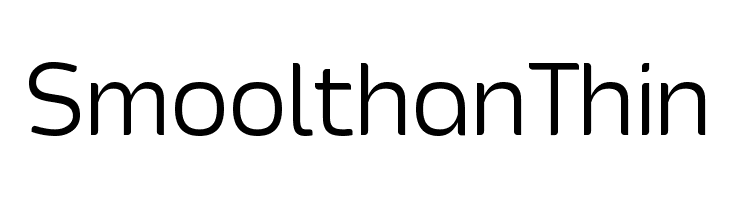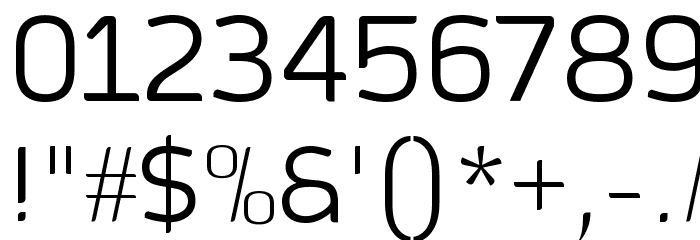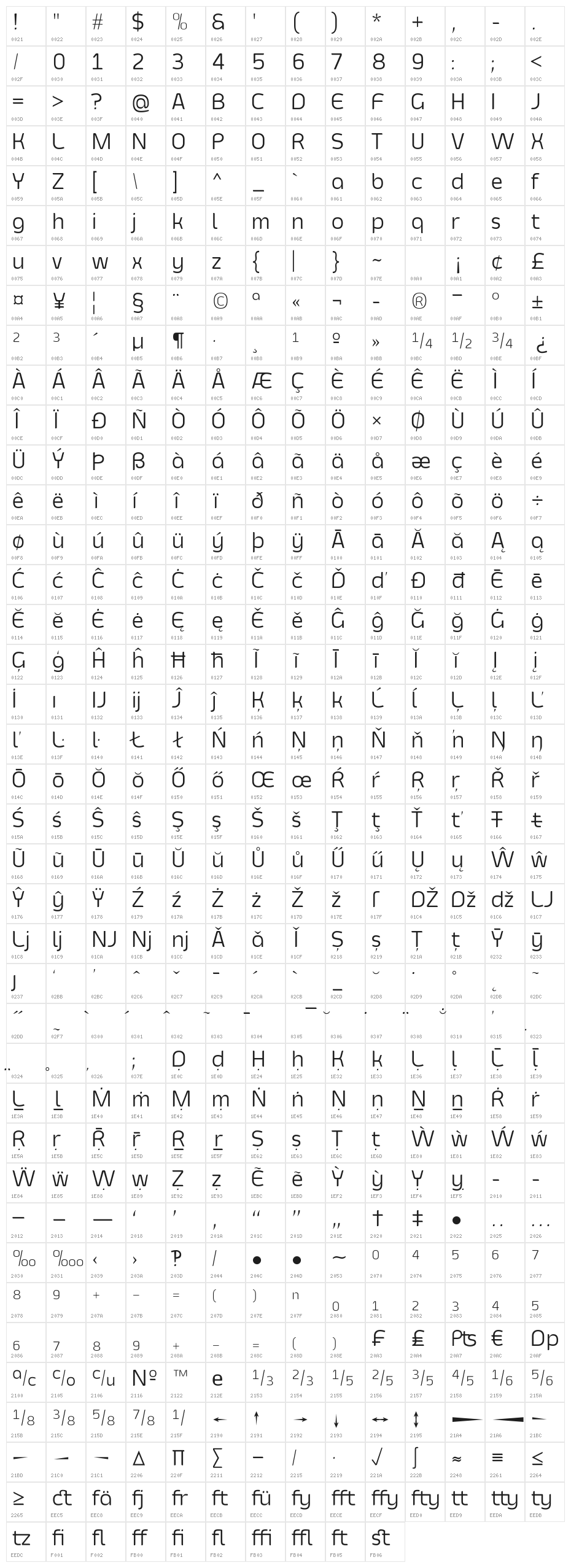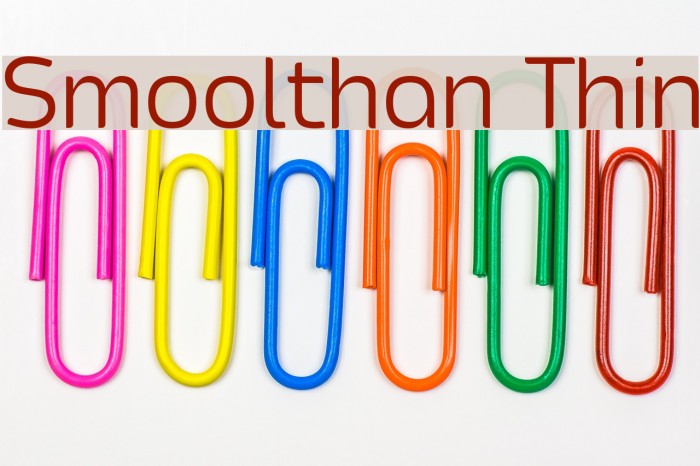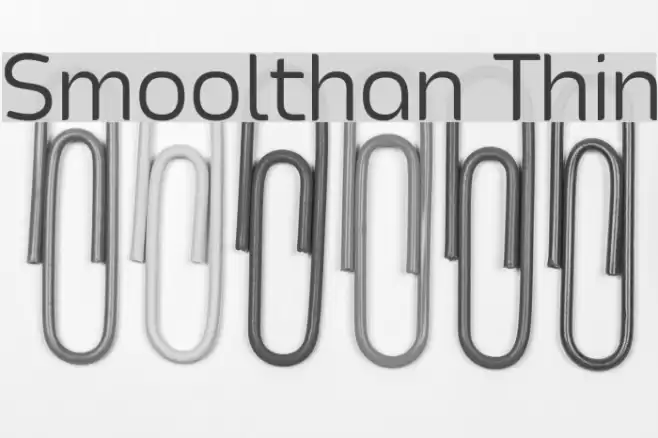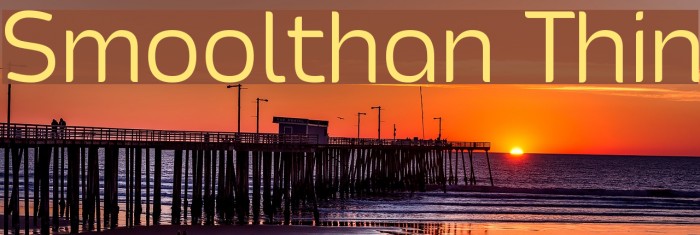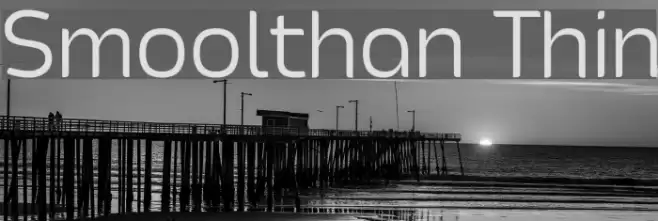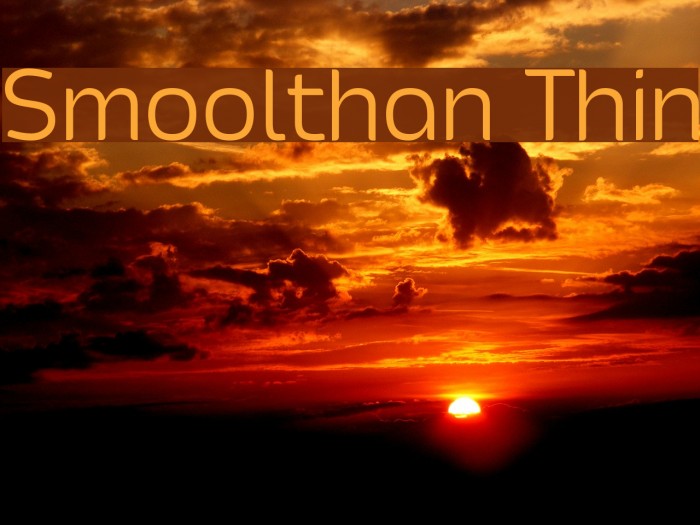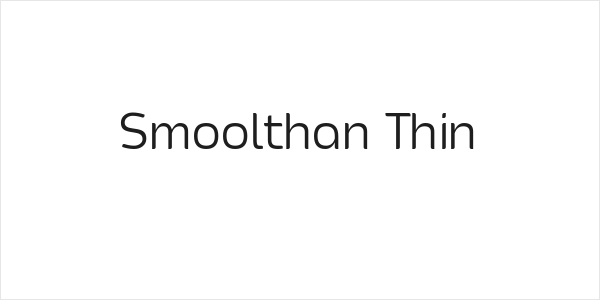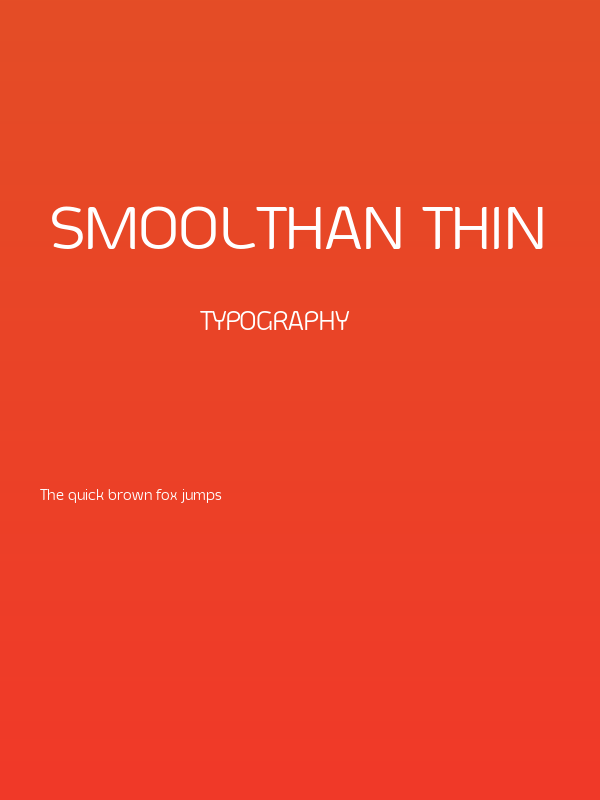
Smoolthan Thin Font
Smoolthan Thin Description
This font features a clean and modern sans-serif style with a thin weight, offering a sleek and contemporary look. The characters are well-proportioned with a consistent stroke width, providing a uniform appearance across both uppercase and lowercase letters. The numerals and special characters maintain the same minimalist aesthetic, ensuring readability and versatility. The design is characterized by its simplicity and elegance, making it suitable for a wide range of applications. The spacing between characters is normal, contributing to its legibility and making it ideal for both digital and print media.